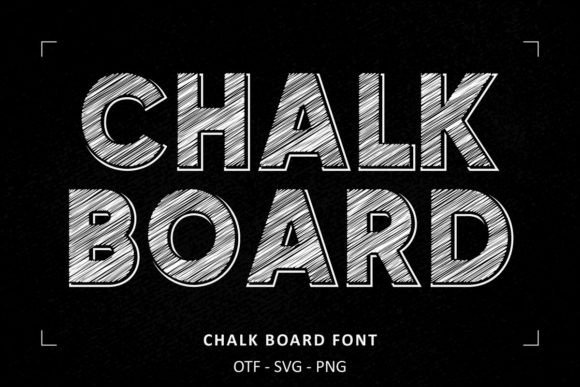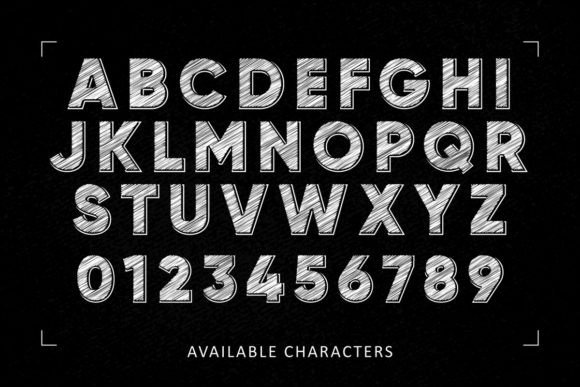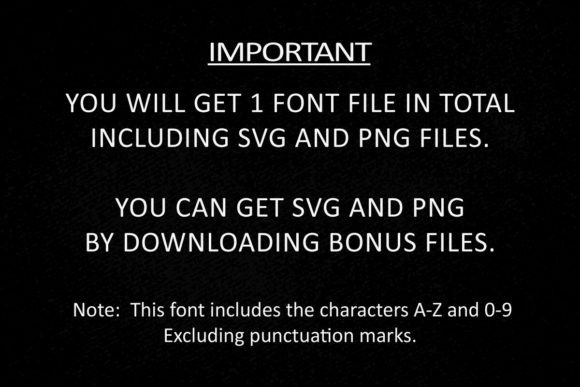
About the Chalkboard Font
Make a bold statement with Chalkboard Font, a powerful and memorable font. Introducing “Chalkboard Font” – is a great sketch display font. It’s suitable for chalk writing and it’s the perfect font for school-themed projects. It works great for creating cool designs that scream for attention. It’s ideal for anything ranging from t-shirts, book designs, restaurant menus, blog writing, and greeting cards to stickers, or anything that needs a casual touch. Fall in love with its incredibly cool style, and use it to create lovely designs!